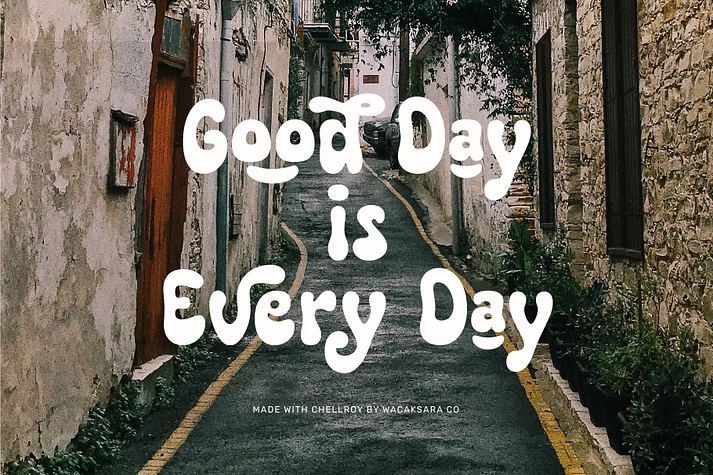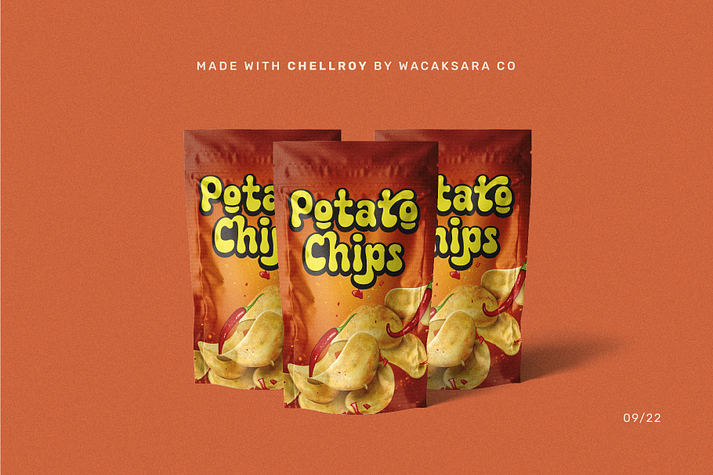
Chellroy
Chellroy is a font family published by Wacaksara Co.
Chellroy is a modern retro font with handdrawn Style - it’s a cool modern style for retro classics, perfect for quote designs, cricut projects, header text, logos & branding, ads, posters, magazines, youtube, instagram, websites and more. It’s packed with lots of alternatives and ligatures to bring your designs to life.
• Multilanguage
• Alternates
• Ligatures